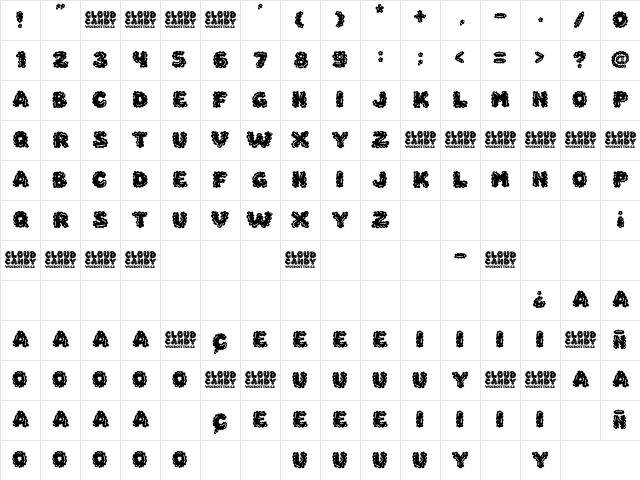
Cloud Candy Regular
Designer: Woodcutter Manero
Design Context for Cloud Candy
Cloud Candy is a composed and adaptable typeface that performs quietly and consistently across a wide range of design contexts.